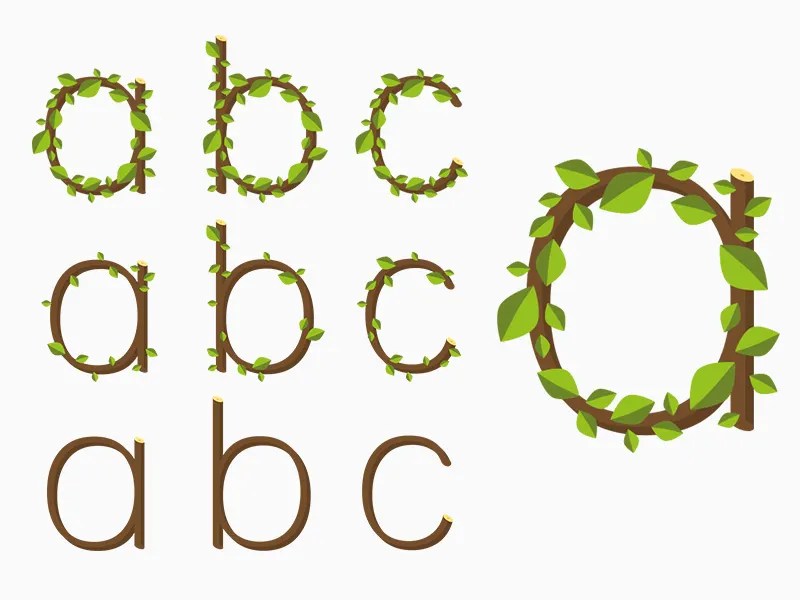
Famous Tree Fonts 2022
The font family comes with 6 weights from thin to black. Figtree is a versatile typeface that works both for texts and display use. You can find some other great options here on gfonts.com as well that will.
Frozen tree is a thick lettered yet friendly display font. Inspirational designs, illustrations, and graphic elements from the world’s best designers. Family tree font belongs to family tree subfamily.